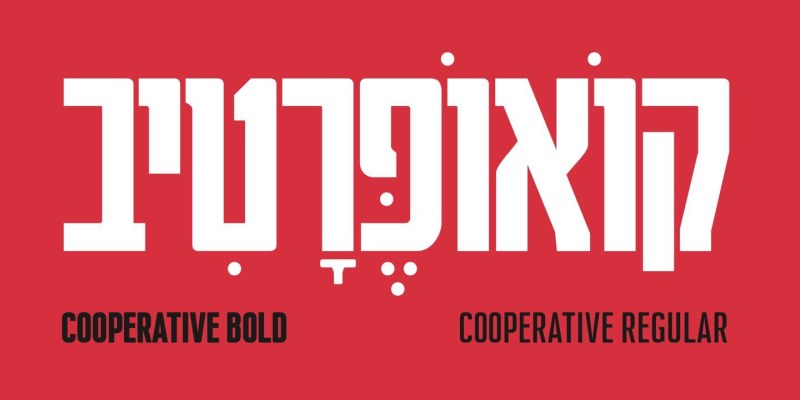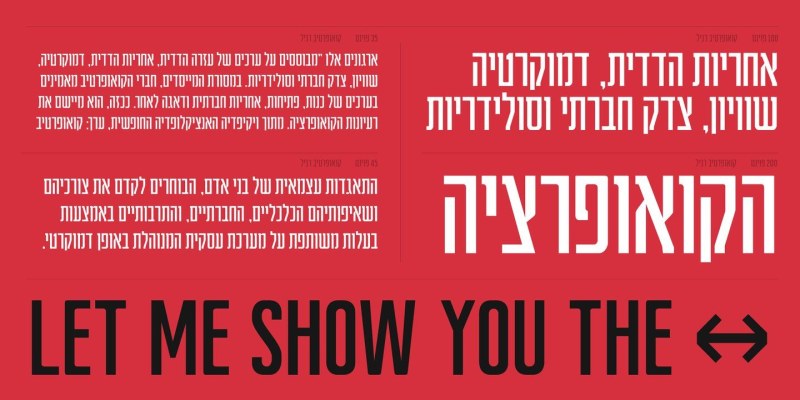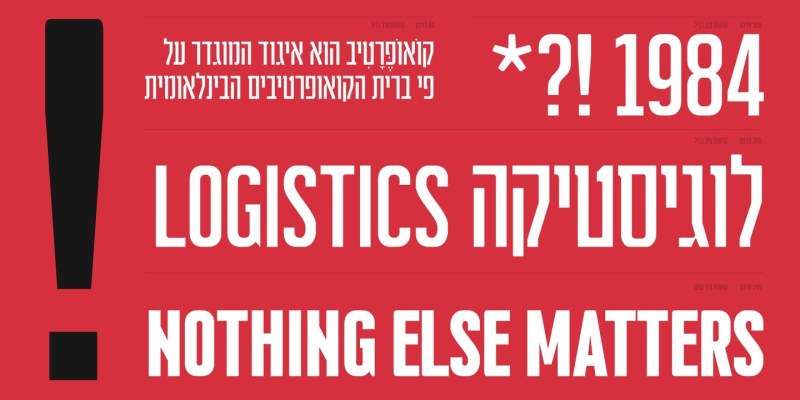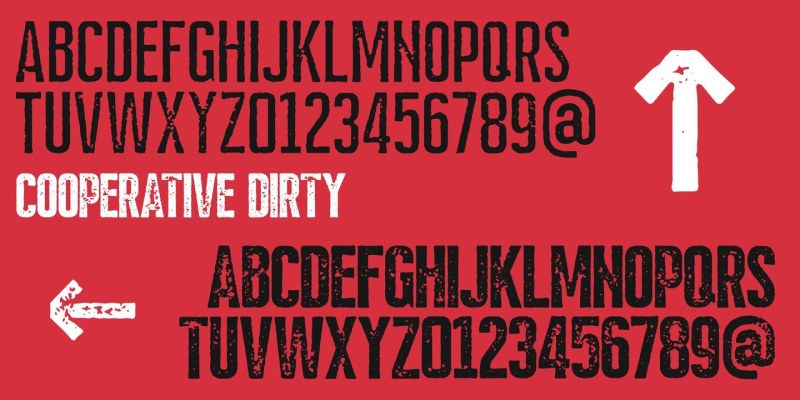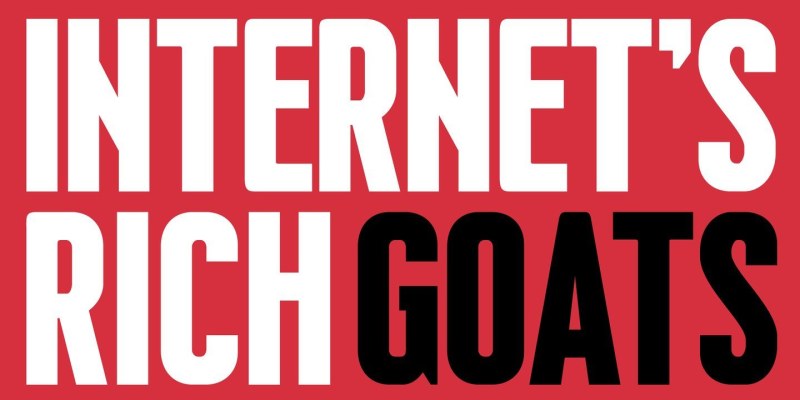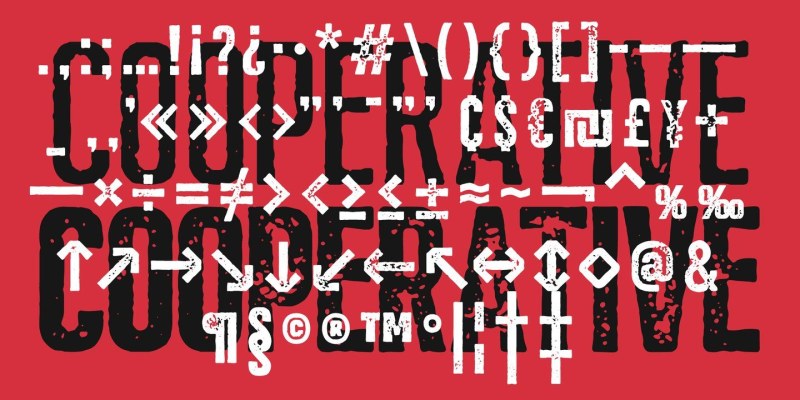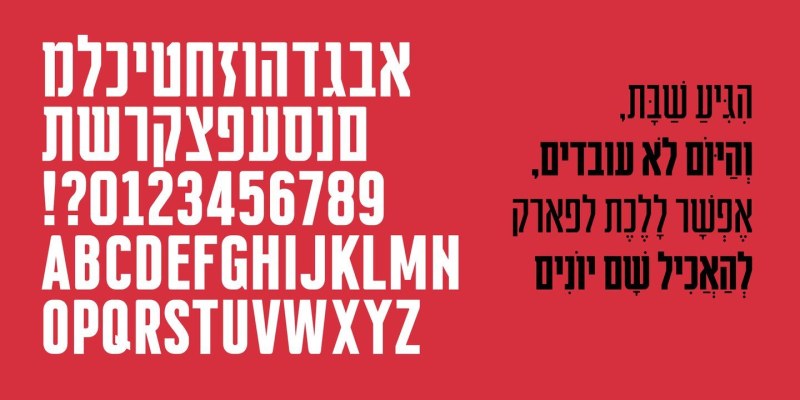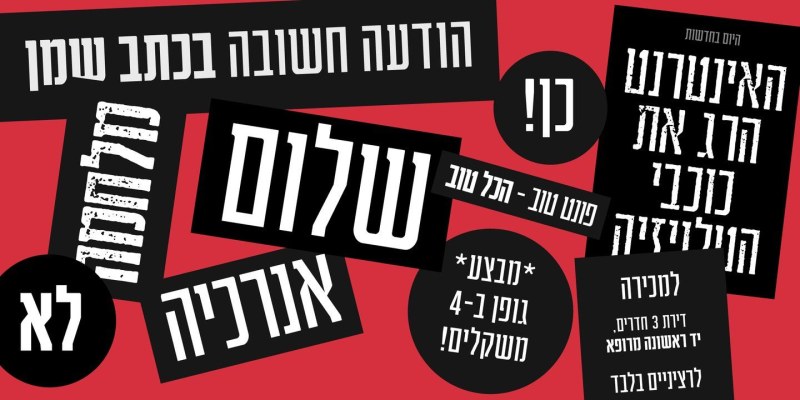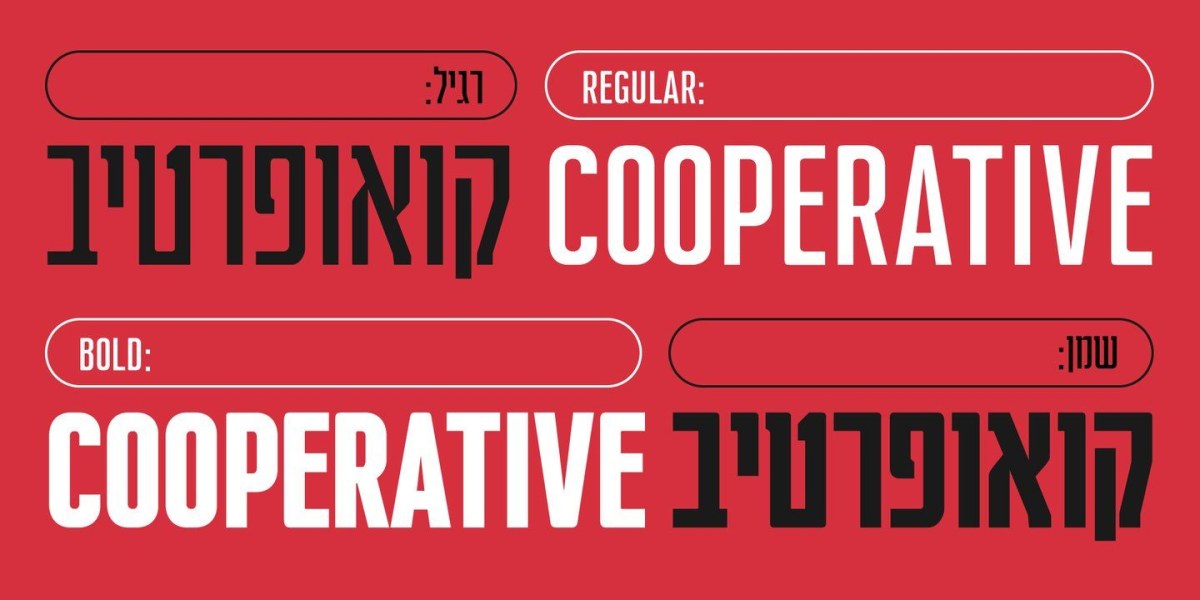
Cooperative Font Family
Cooperative is a retro style poster font in Hebrew and Latin. Is based on a printed example of a vintage handmade wood type from the 1950’s. This sans serif font is available in both regular and bold versions, with a dirty and grungy styles as well in regular and bold.